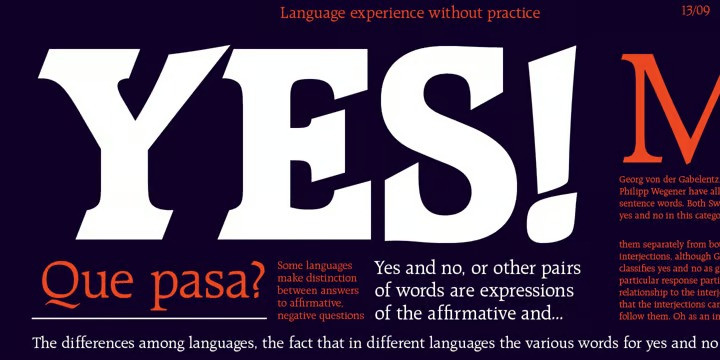
Raleigh Font
Raleigh Font a contemporary old style serif with calligraphic features. Appears to be good in both text and display typography. Cyrillic version was developed at ParaType by Vladimir Yefimov.
Raleigh was produced in 1977 by Robert Norton, basing on Carl Dair’s Cartier typeface which was designed for the 1969 Montreal World’s Fair. It was renamed after Dair’s death. Adrian Williams added three weights for a display series, and Robert Norton developed the text versions.